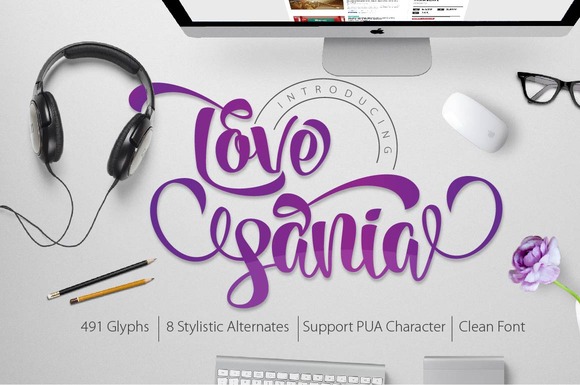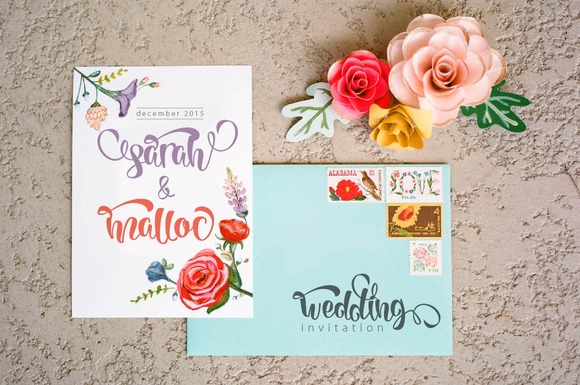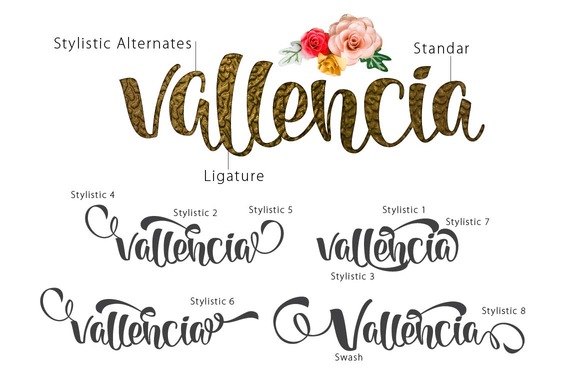
Love Sania Font
About Love Sania Font
Love Sania is a modern Lettering typeface and can be used for various purposes such as headings, posters, t-shirts, logos, labels, book covers and much more